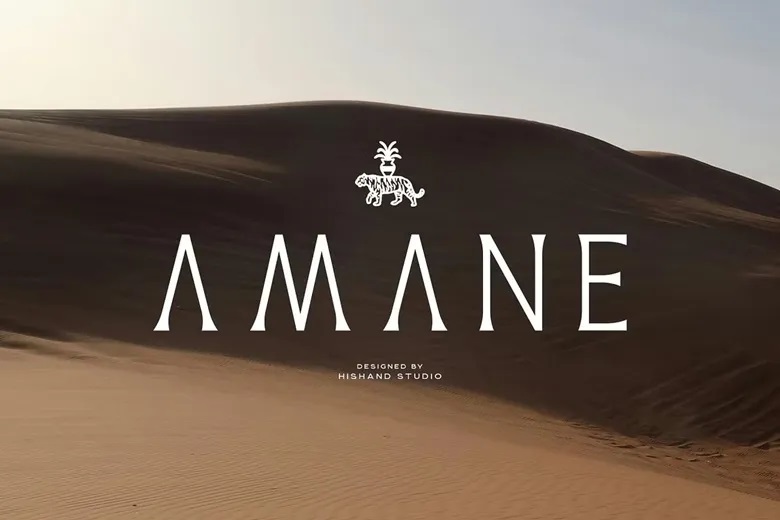
Amane Font
AMANE is a sophisticate serif display font designed with influence from the arabic desert. AMANE has clean yet fine lines of the characters and the letterforms that speak a touch of enigma of luxury branding, editorial titles, and artistic projects. To make the rounds, it unapologetically has a slight flair but looks majestic on backgrounds with little clutter; each character looks like an artwork.
AMANE combines traditions and innovations, putting the focus on reaching out with an engaging visual appeal suitable for demanding projects.
Amane Display Font